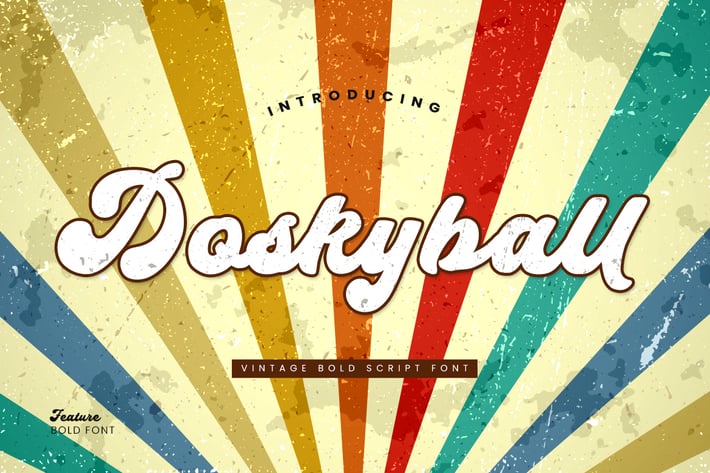
Doskyball Vintage Bold Script Font
Introducing a new retro pop script called Doskyball Inspired by '70s script letters. The Doskyball comes with open-type features such as style alternatives, & fasteners. Doskyball Typeface best use for headings, Logotypes, quotes, clothing designs, invitations, pamphlets, posters, greeting cards, product packaging, book covers, printed quotes, album covers, films, etc.
Doskyball Font multilingual support:
Afrikaans, Albanian, Catalan, Danish, Dutch, English, Estonian, French, Finnish, German, Icelandic, Indonesian, Italian, Malay, Norwegian, Portuguese, Spanish, Swedish, Zulu, and many more.